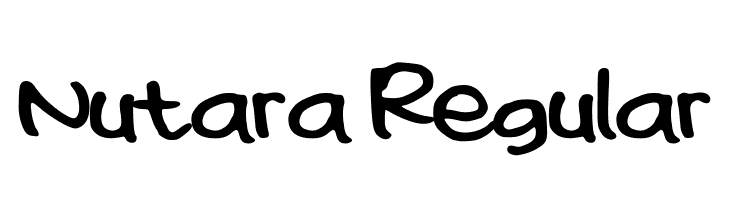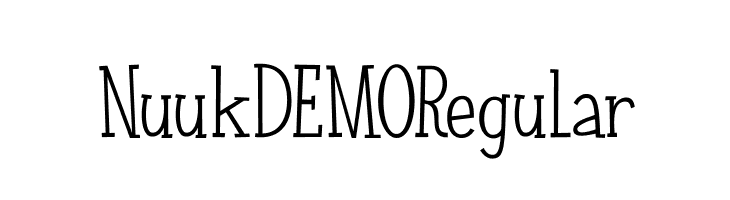
A playful, bold font with rounded, slightly irregular letterforms.
A playful, hand-drawn font with quirky, animated strokes.
A playful, hand-drawn font with tall, narrow letterforms and subtle curves.